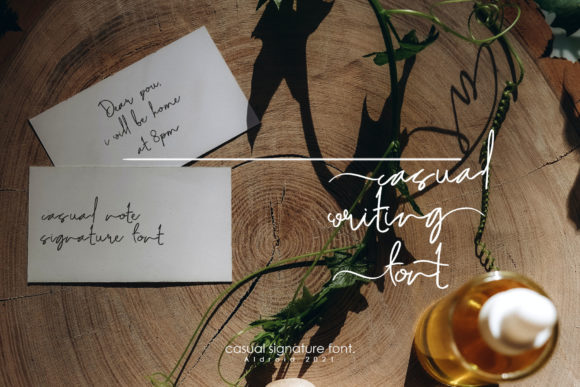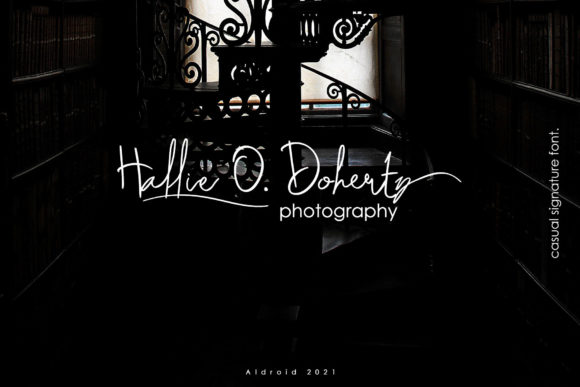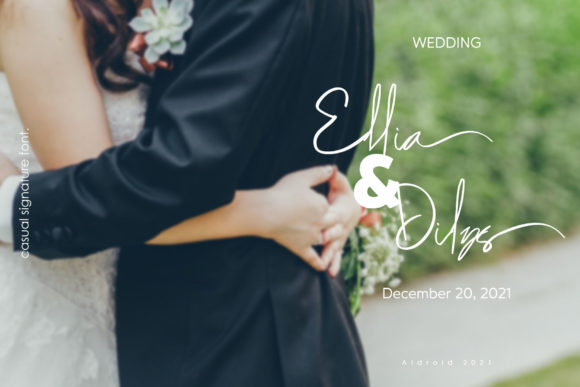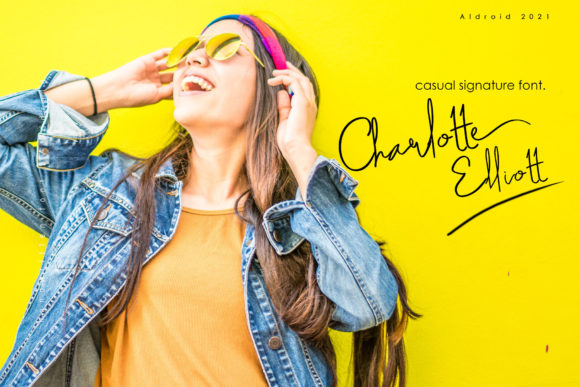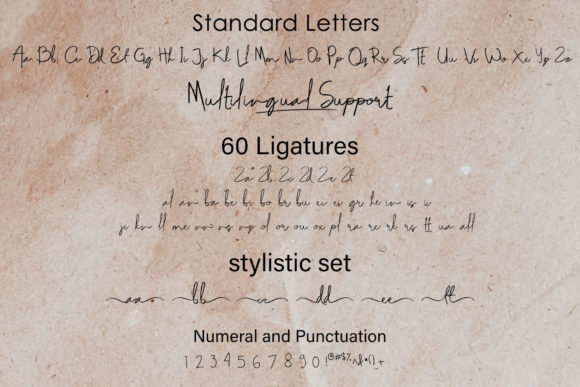
Astungkara Font
About Astungkara Font
Astungkara is a casual signature script font. It is perfect for many different projects such as logos & branding, invitation, poster, flyer, wedding designs, social media posts, and more.